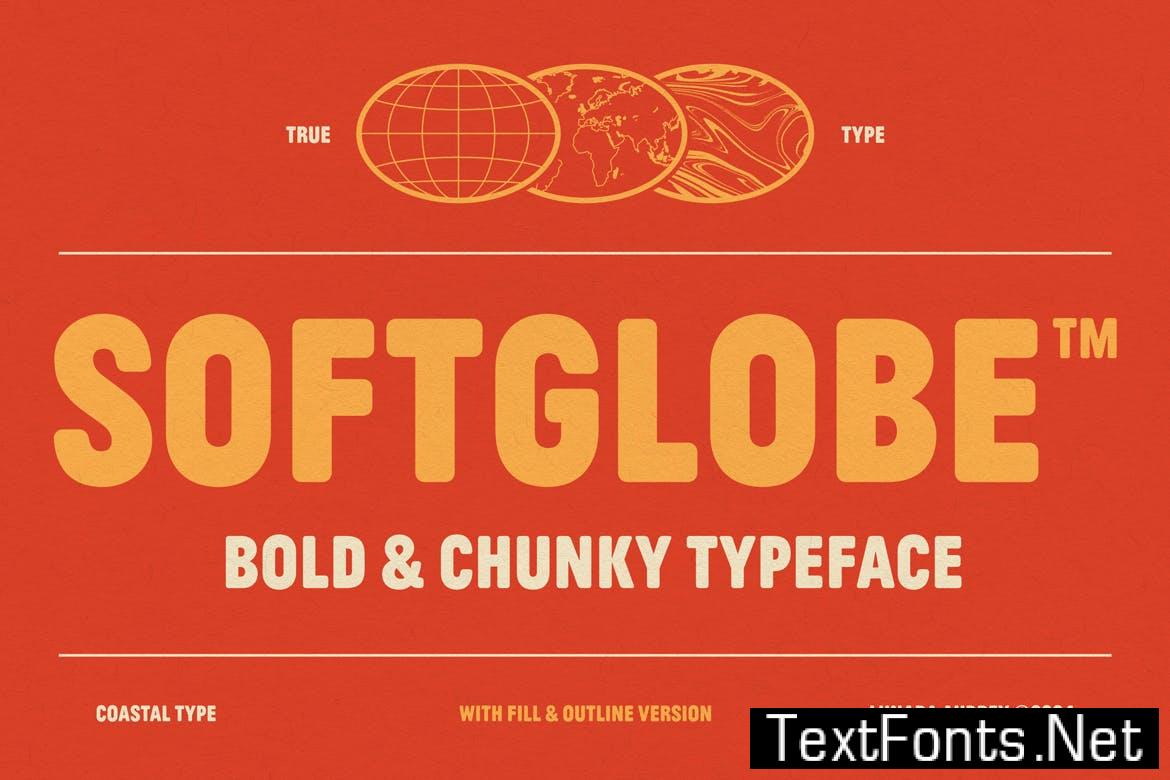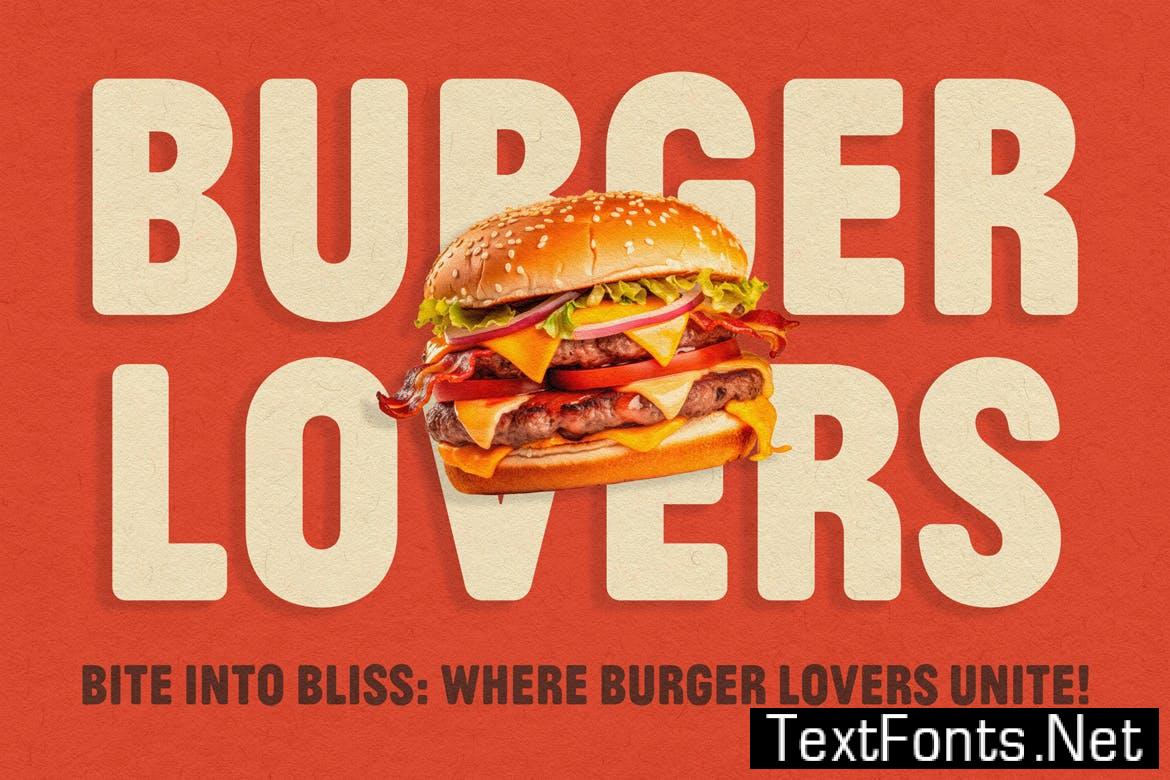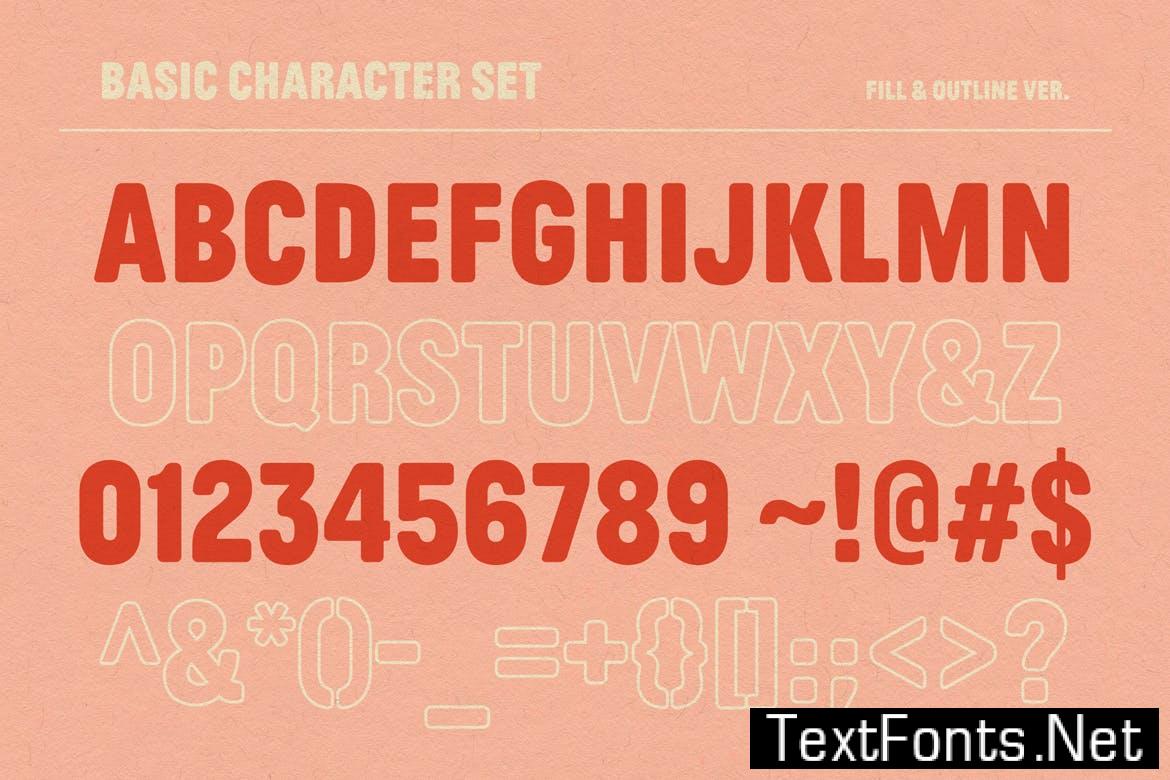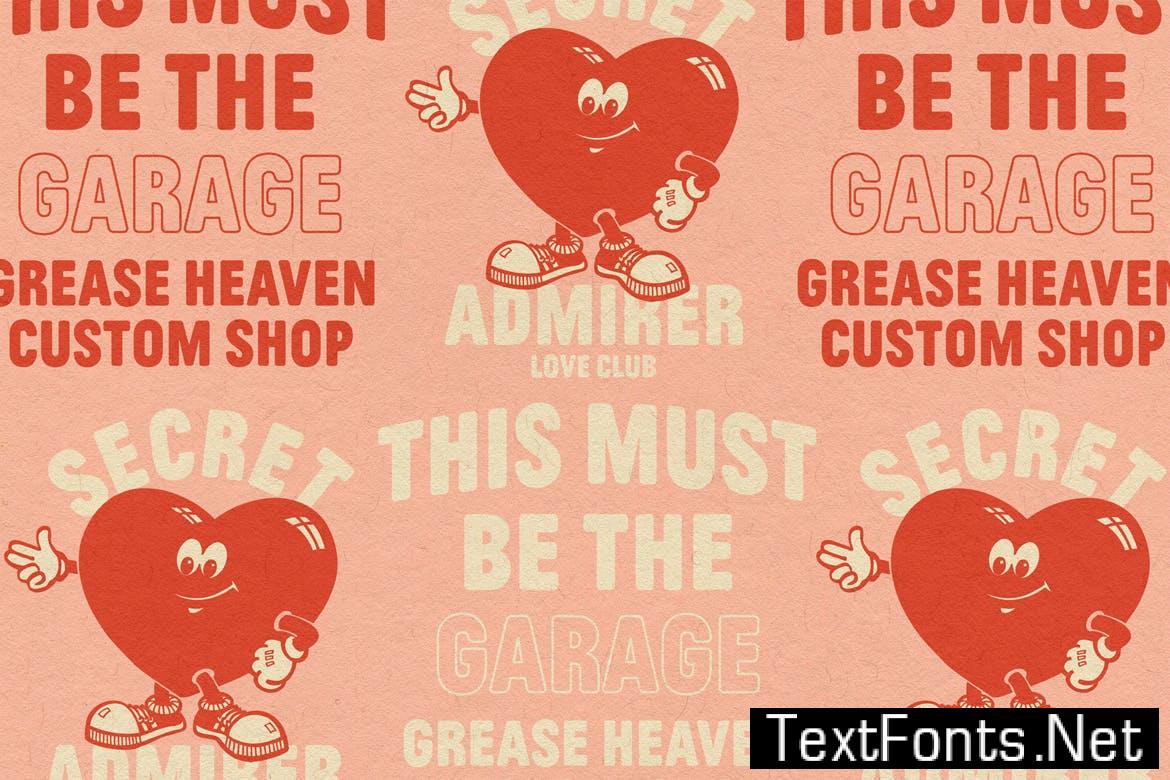
“Embrace playful journeys with our **Softglobe** typeface – igniting excitement in kids’ apps, books, toys, packaging, movies, theme parks, and more!”